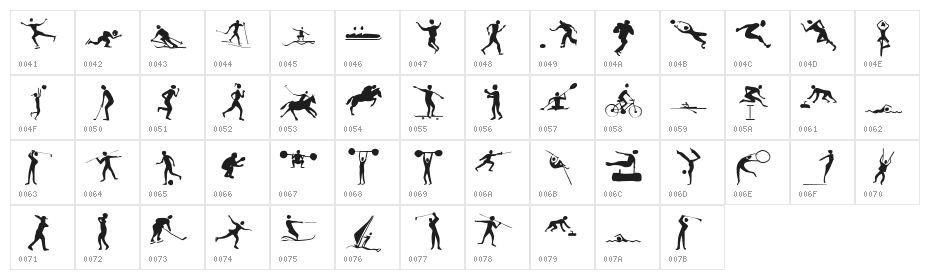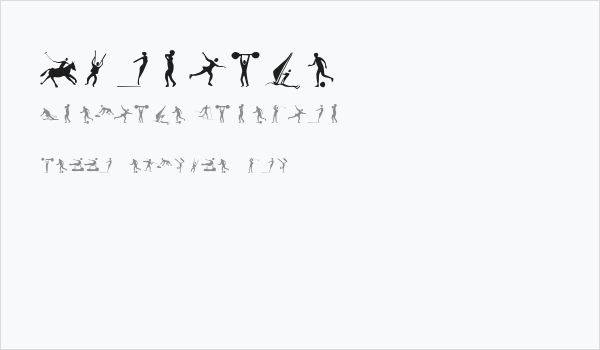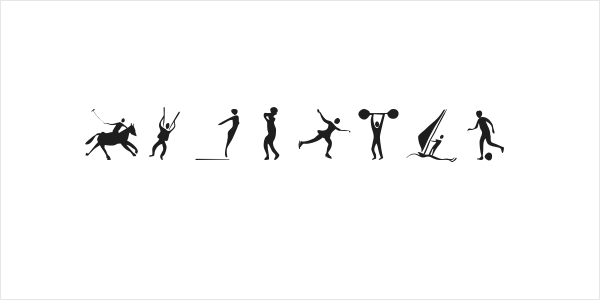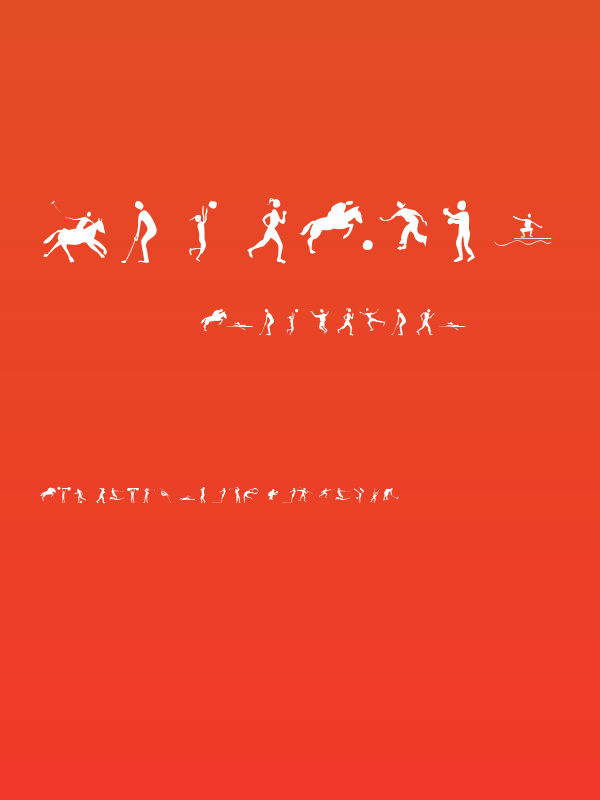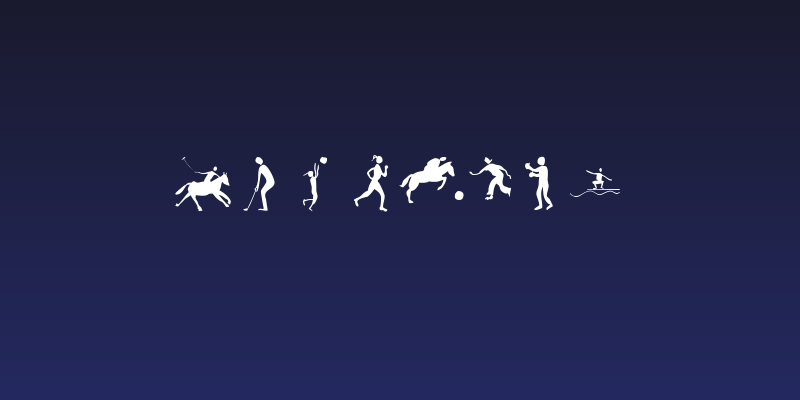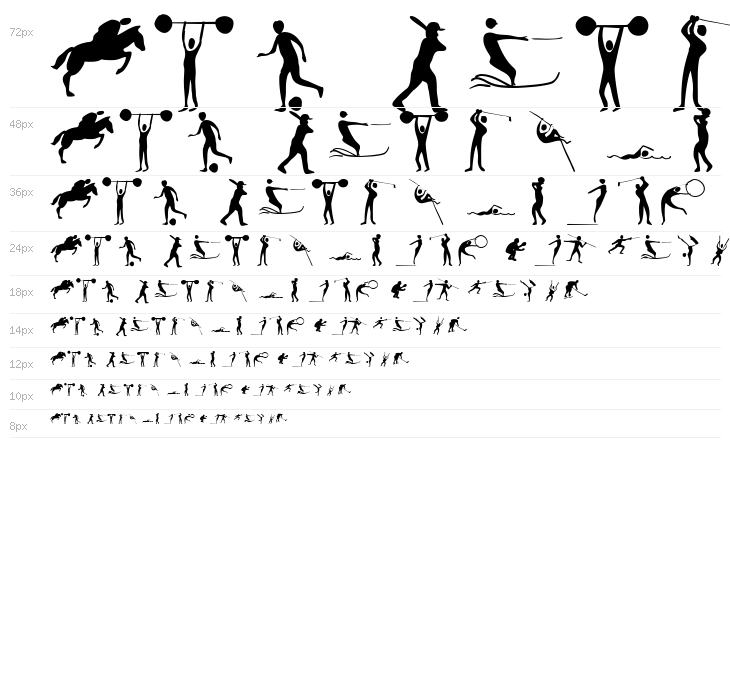
Sportive Font
Sportive Description
This is not a font but a collection of pictograms depicting various sports activities, each represented by simplified human figures in action poses.
| Overall Style | Modern, Minimalist |
| Use Case | Icons, Signage, Infographics |
| Proposed Projects | Infographics, sports event signage, educational materials, activity schedules. |